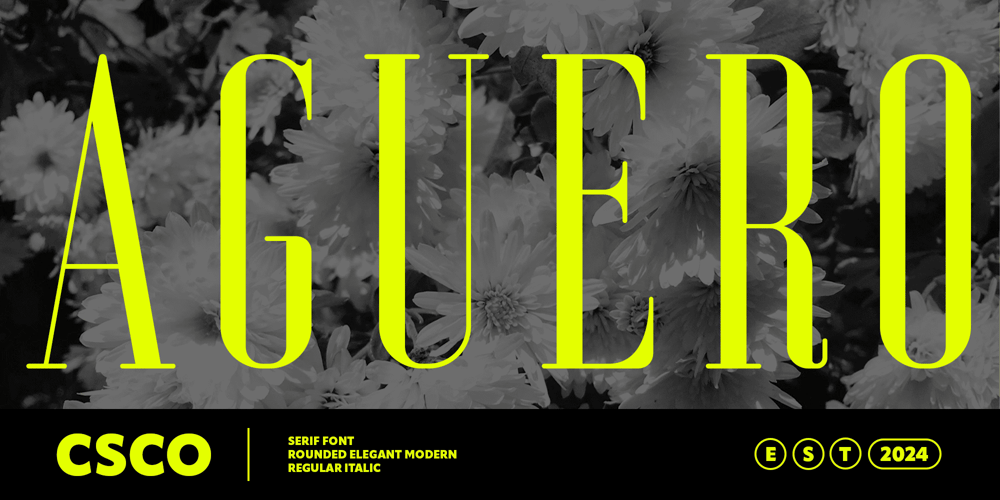
Aguero Serif Rounded Font Family was designed by Trio Nazzar Saputra, Wahyu Hadi Yuana and published by Craft Supply Co. Aguero Serif Rounded contains 5 styles and family package options. Aguero Serif Rounded: Refined Elegance in Display TypographySleek Serif DesignAguero Serif Rounded presents a refined serif typeface with a condensed form factor. Its sleek and streamlined appearance exudes sophistication and professionalism.Soft Rounded EdgesThe font features rounded edges, adding a soft and gentle touch to its overall look. These subtle details enhance readability and create a sense of approachability and warmth.Elegant and VersatileWith its elegant design and soft characteristics, This font is versatile, suitable for various design applications. From branding to editorial layouts, it lends a touch of sophistication to any project.Perfect for Display PurposesTailored for display purposes, This font excels in headlines, banners, and other prominent design elements. Its condensed form ensures maximum impact while maintaining readability.Timeless SophisticationThis font offers a perfect blend of elegance and functionality. Its sleek serif design, combined with soft rounded edges, creates a versatile typeface suitable for a wide range of design projects, adding a touch of timeless sophistication to any layout.